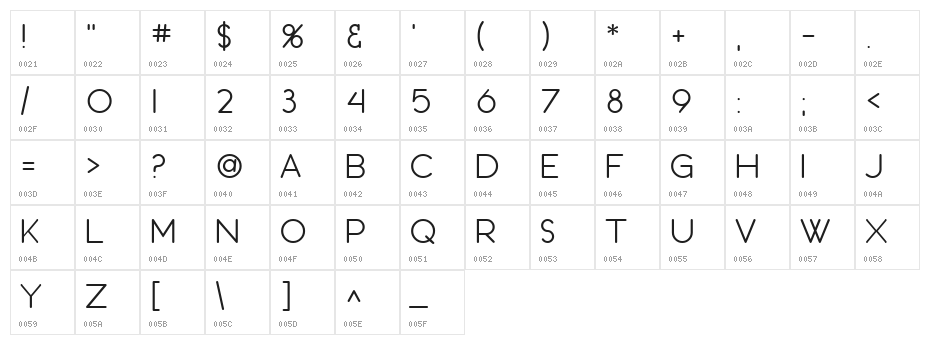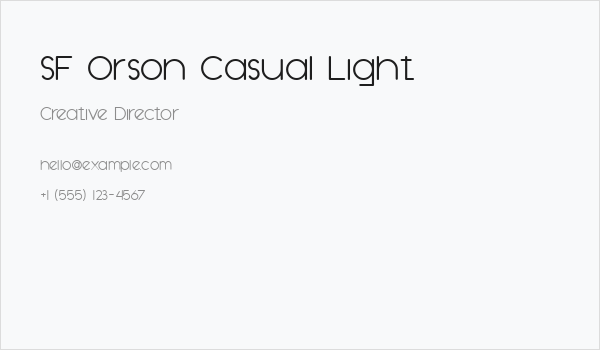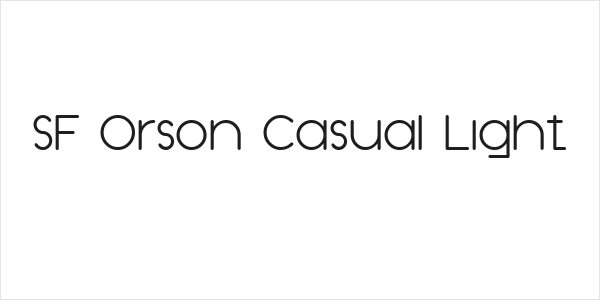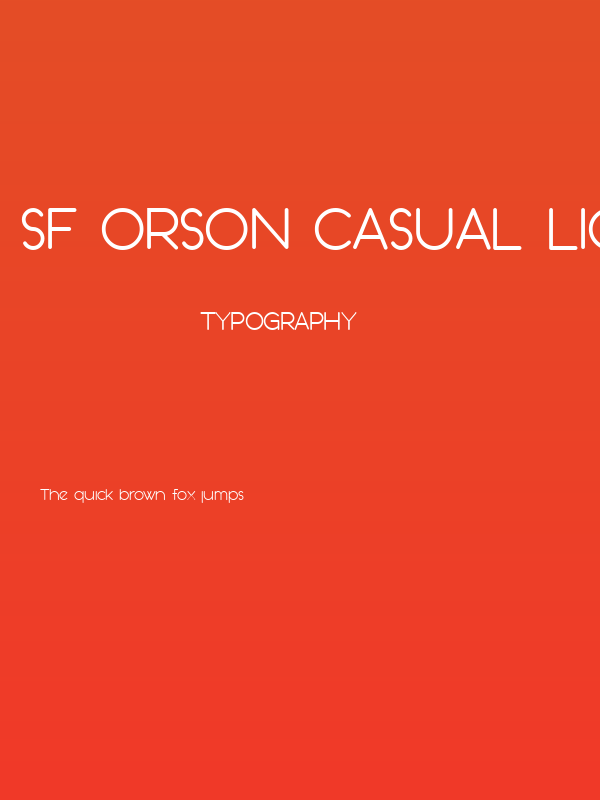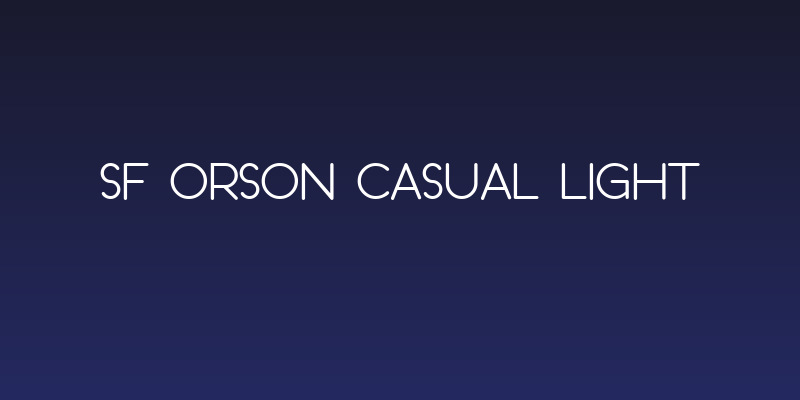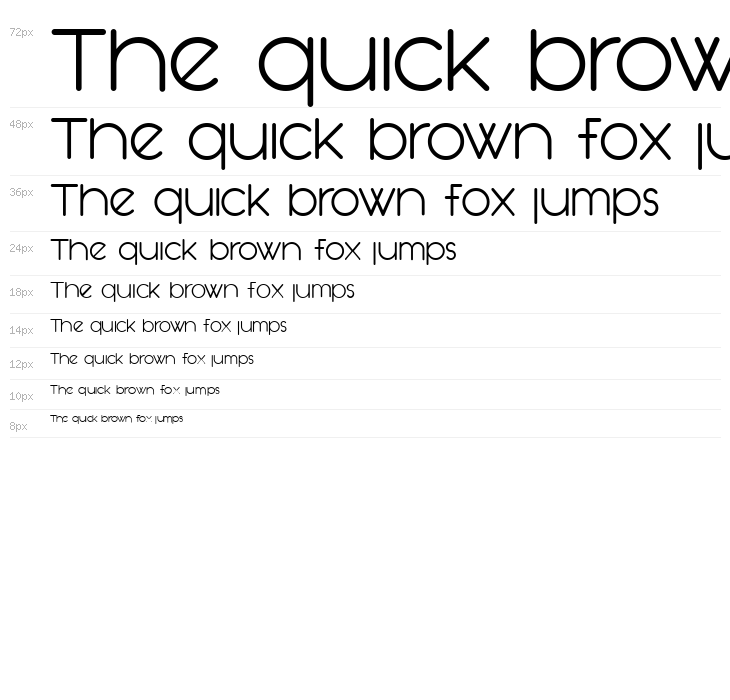
SF Orson Casual Light Font
SF Orson Casual Light Description
This font features a clean and modern design with a casual flair. The characters are rounded and smooth, giving it a friendly and approachable appearance. The uppercase letters are tall and slightly narrow, while the lowercase letters maintain a consistent height, contributing to a harmonious look. The numerals are clear and easy to read, with a uniform stroke width that enhances legibility. Special characters are well-integrated, maintaining the overall style. This font's simplicity and elegance make it versatile for various design applications.